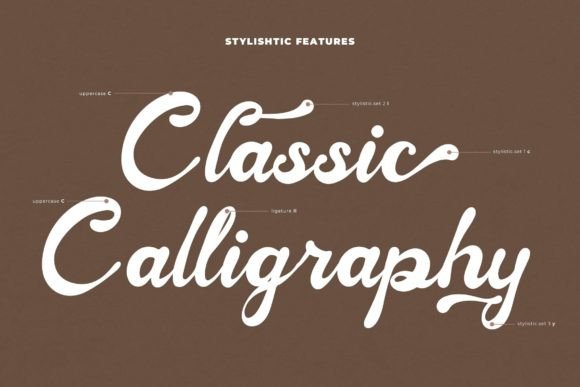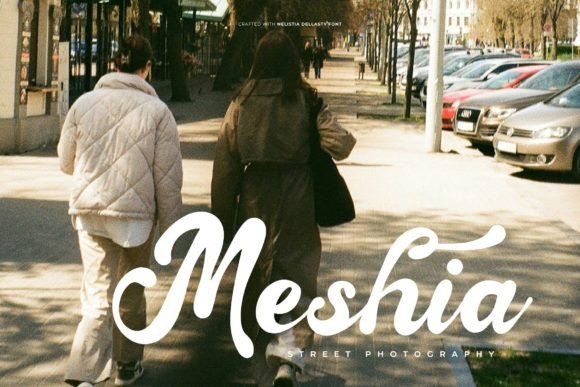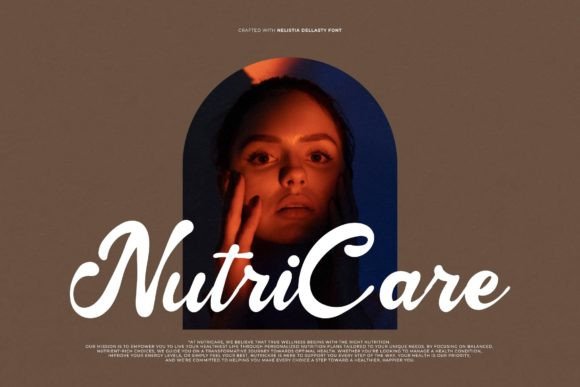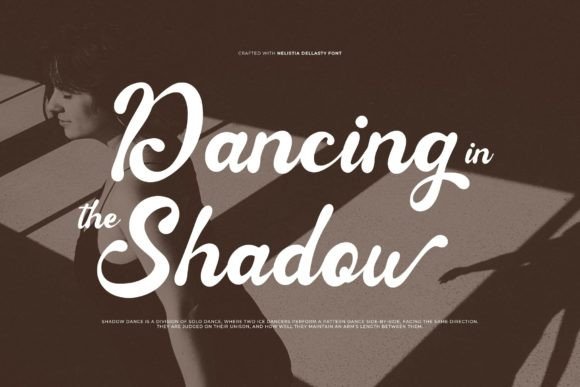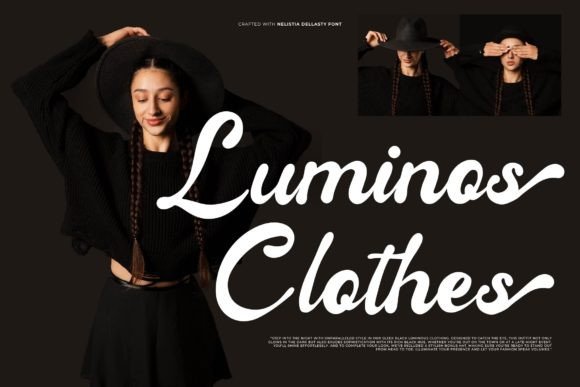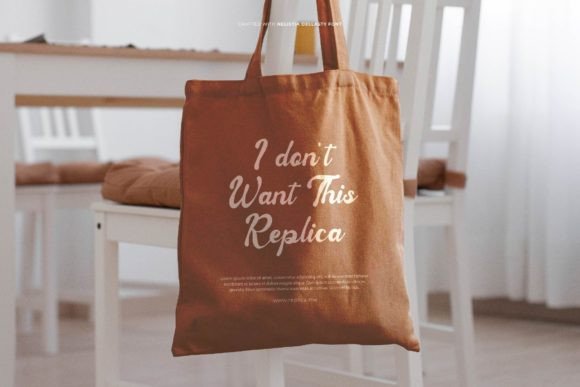
Introduction to Nelistia Dellasty Font
As a designer, there’s nothing quite like the thrill of discovering a new font that sparks creativity and inspires your next project. For me, that moment came when I stumbled upon the enchanting Nelistia Dellasty Font. Its elegant, flowing letters seemed to dance across the page, inviting me to create something truly special.
With its smooth and natural look, the Nelistia Dellasty Font is the perfect addition to any design resource. Whether you’re working on a high-quality logo, invitation, or greeting card, this beautiful hand-drawn script font is sure to add a personal and artistic touch. And the best part? It’s a free download, making it an accessible design resource for creatives of all levels.
As a valuable tool for designers, the Nelistia Dellasty Font offers a range of possibilities for creative projects, from weddings and events to branding and marketing campaigns. With its transparent background, you can easily layer it over images or use it on its own to create stunning visual effects.
Key Features of Nelistia Dellasty Font
- High-quality design resource perfect for creative projects, available for free download.
- Unique, elegant script font with a transparent background, ideal for adding a touch of sophistication.
- Unique characteristics: flowing connections between letters, subtle flair, and a touch of whimsy.
- Perfect for use in wedding invitations, greeting cards, and other creative projects requiring a delicate, handwritten touch.
Honest Review: Nelistia Dellasty Font
I recently had the chance to work with the Nelistia Dellasty Font, and I must say, it’s a great addition to any designer’s toolkit. This high-quality font is perfect for designers working on creative projects that require a unique and elegant touch.
- ✨ The Nelistia Dellasty Font has a transparent background, making it easy to use on any design surface.
- ✨ The font’s design is sleek and modern, making it perfect for a variety of creative projects.
- ⚠️ The font may not be suitable for projects that require bold or dramatic typography.
- ⚠️ The font’s elegance may make it prone to overuse, so be sure to use it sparingly.
Overall, I’m impressed with the Nelistia Dellasty Font. Its high quality and versatility make it a great design resource for any project. While it may not be perfect for every design, it’s definitely worth considering for your next creative project.
The Nelistia Dellasty Font is ideal for creative projects that require a high-quality, unique font. Some common use cases include:
- Business branding and marketing materials
- Artistic and creative projects
Alternatives to Nelistia Dellasty Font
Aurora Script is a high-quality, elegant font perfect for creative projects that require a touch of sophistication. It features a transparent background, making it ideal for use on various design elements. When to use: wedding invitations, luxury branding, and high-end product design. Comparison: Aurora Script has a more refined and classic feel compared to Nelistia Dellasty Font, which has a bolder and more playful appearance.
Luxi Sans
Luxi Sans is a clean and modern font suitable for a wide range of design applications. It offers a free download option and can be used for both personal and commercial projects. When to use: corporate branding, digital interfaces, and informative materials. Comparison: Luxi Sans has a more straightforward and minimalist design compared to Nelistia Dellasty Font, which has a more elaborate and decorative feel.